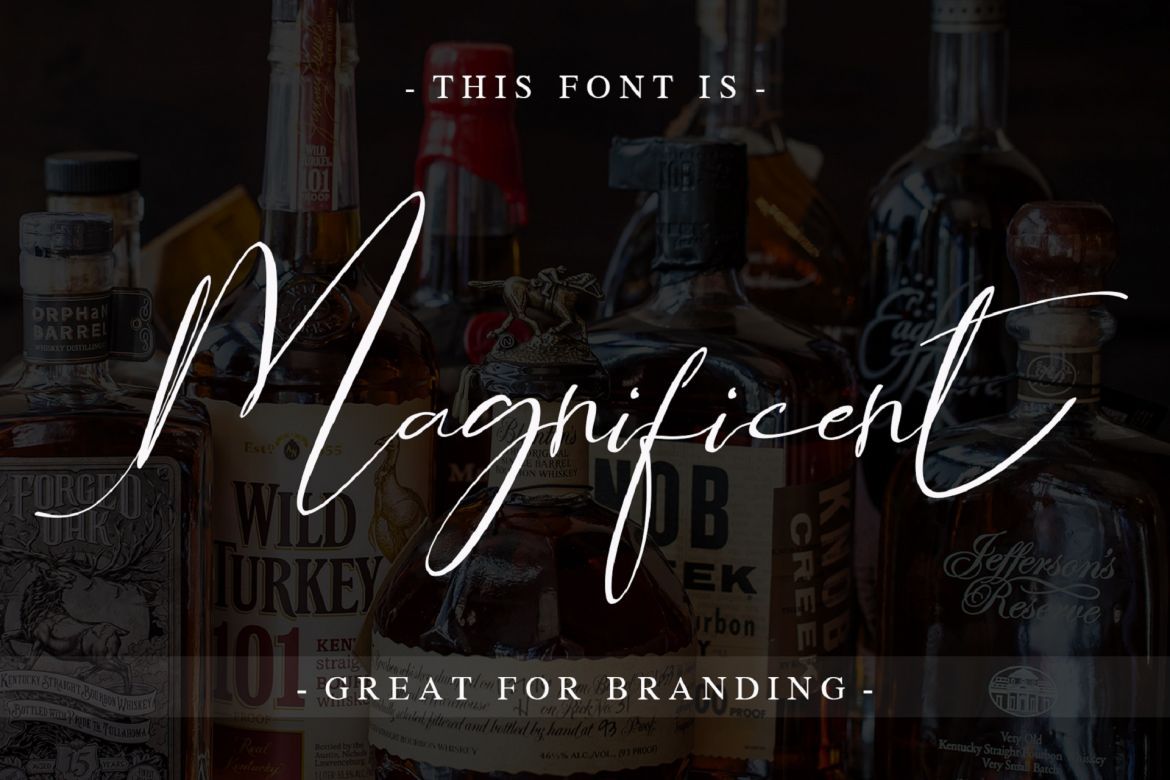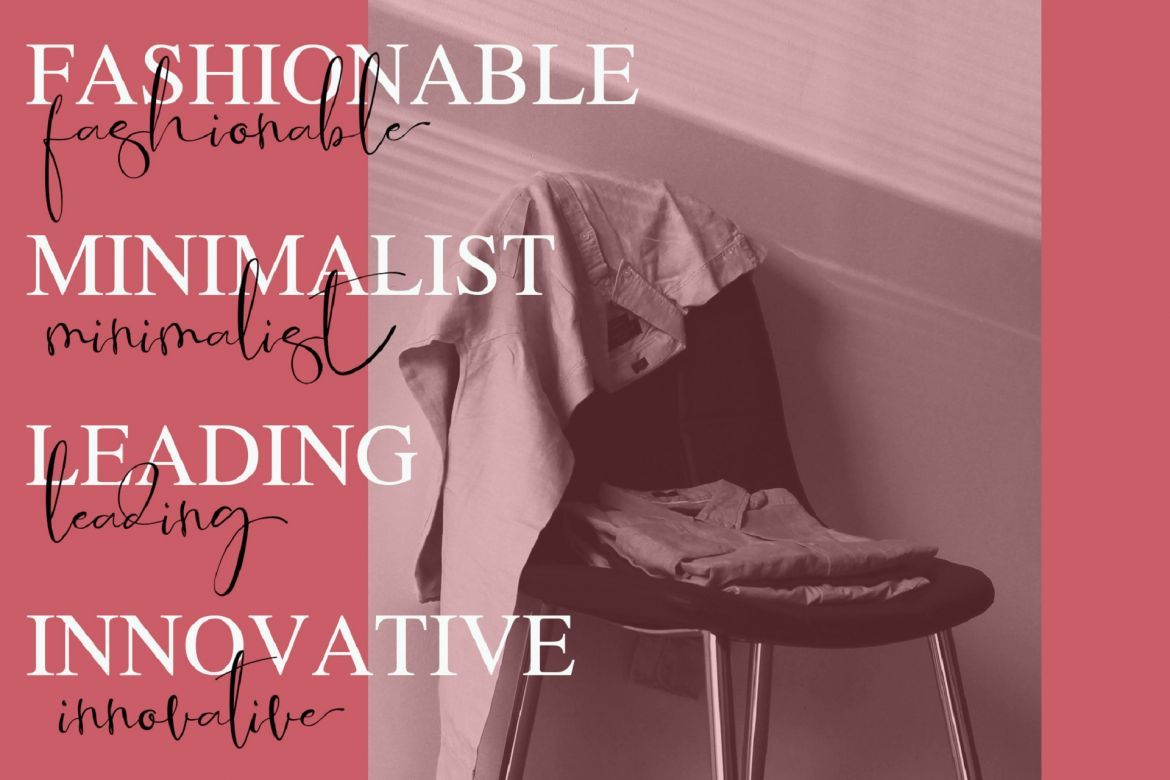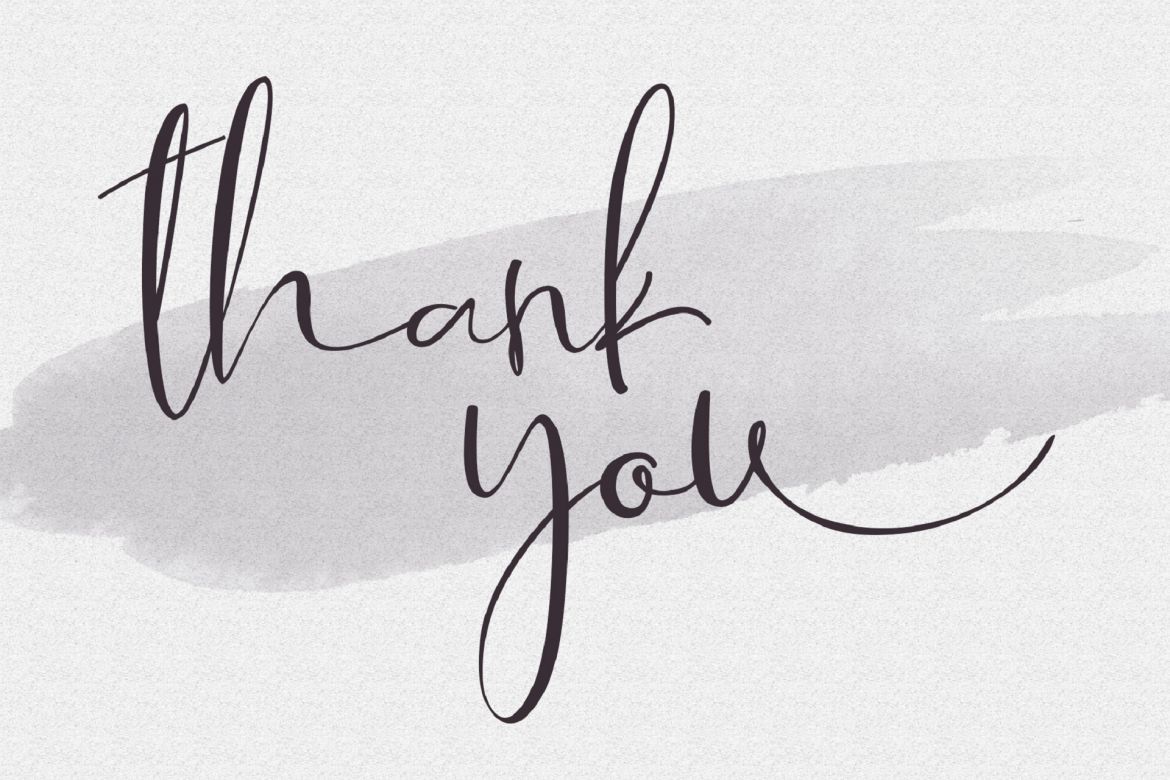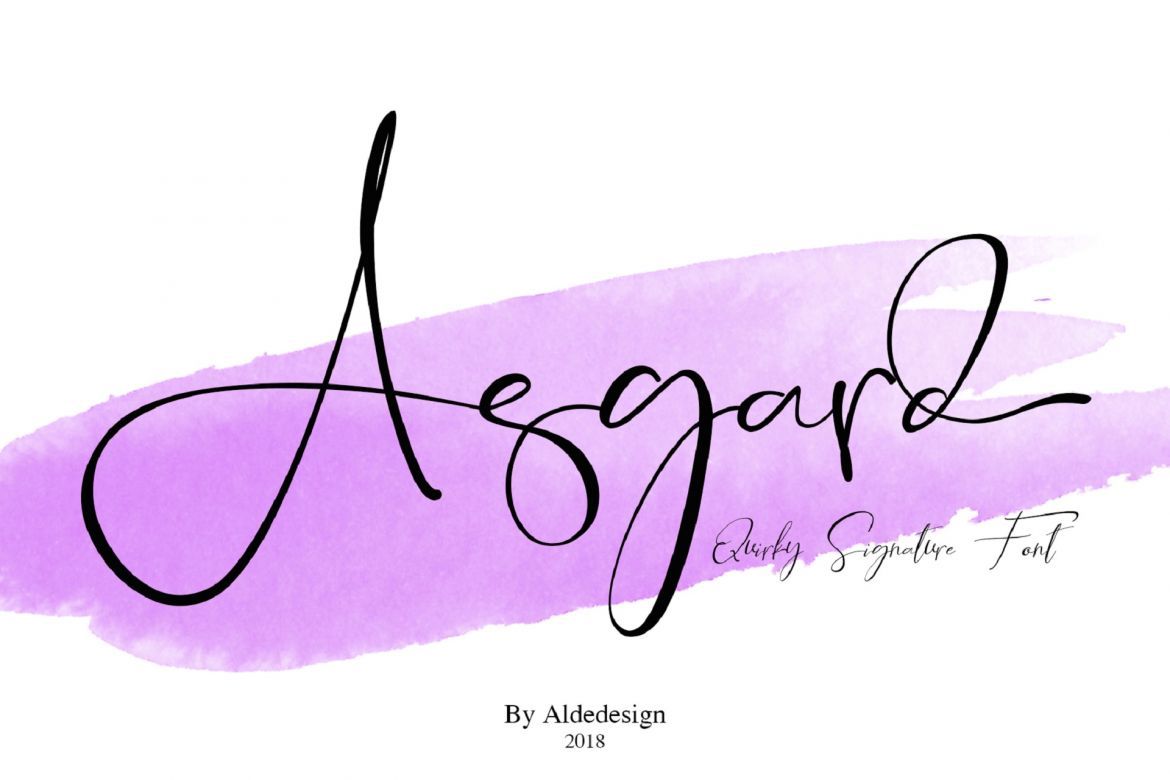
Asgard - Signature Font
This is Asgard! Signature font for classy design, branding, headline, photography and etc.
Include Asgard slant version to elevate your design.
• each font has: stylish handwritten style, beautiful swash (ending tail), beautiful titling (beginning tail), special ligatures, multilingual support